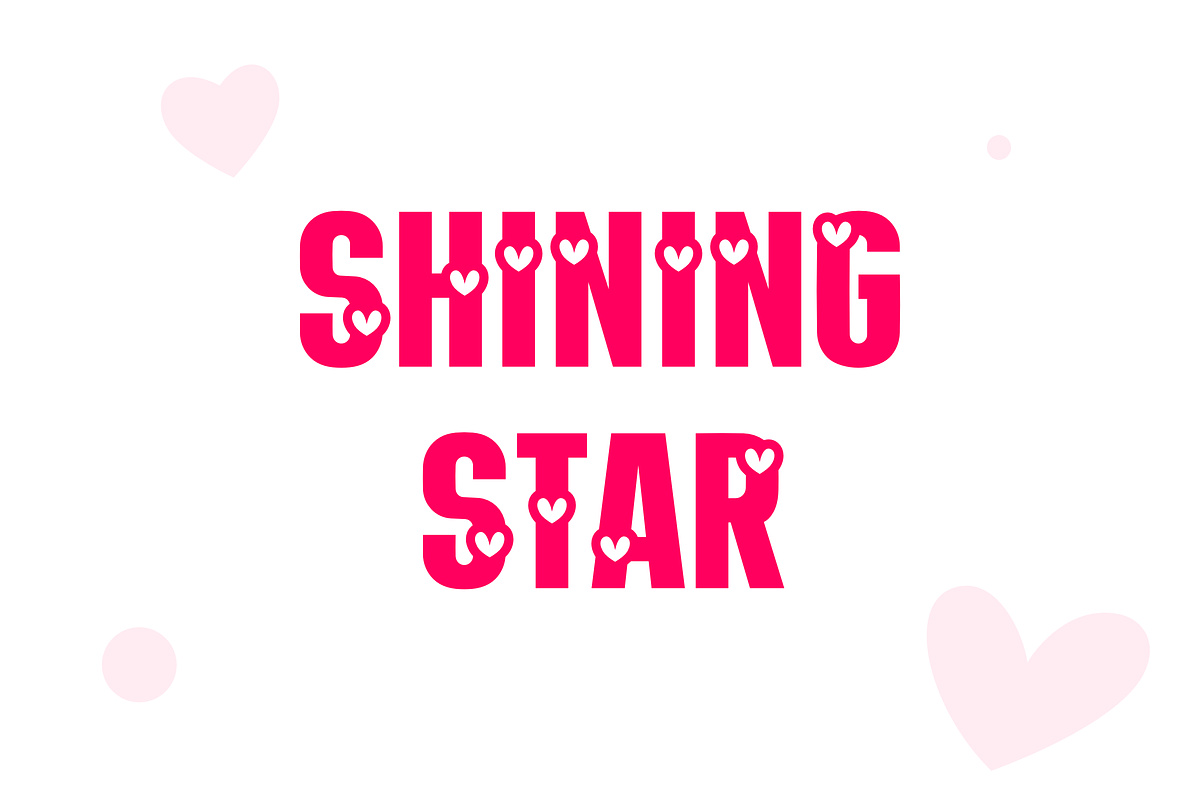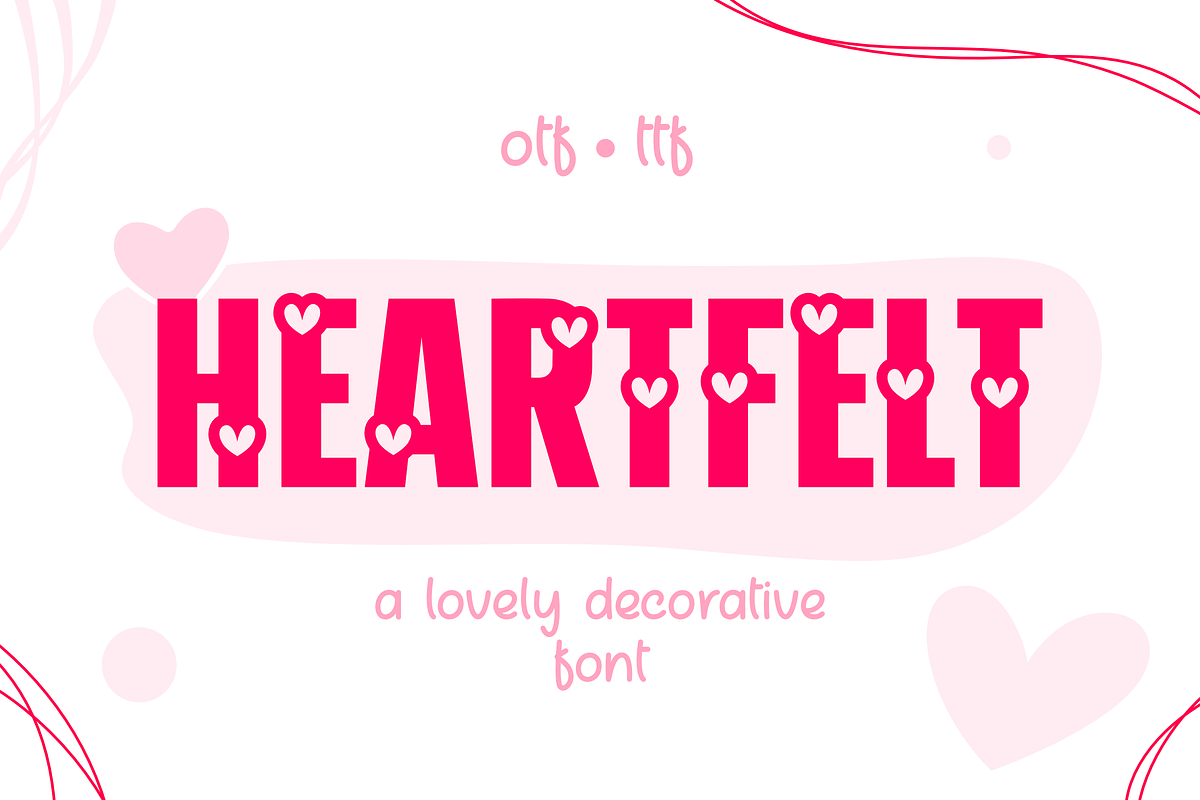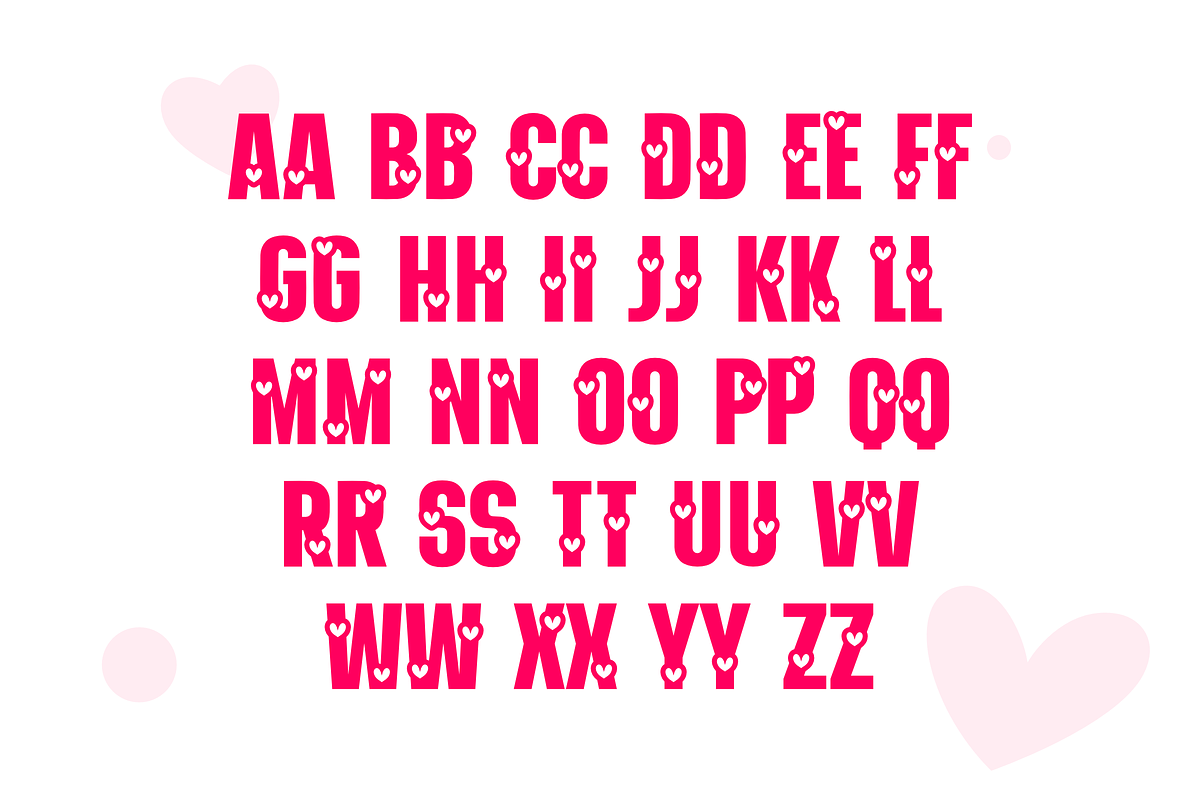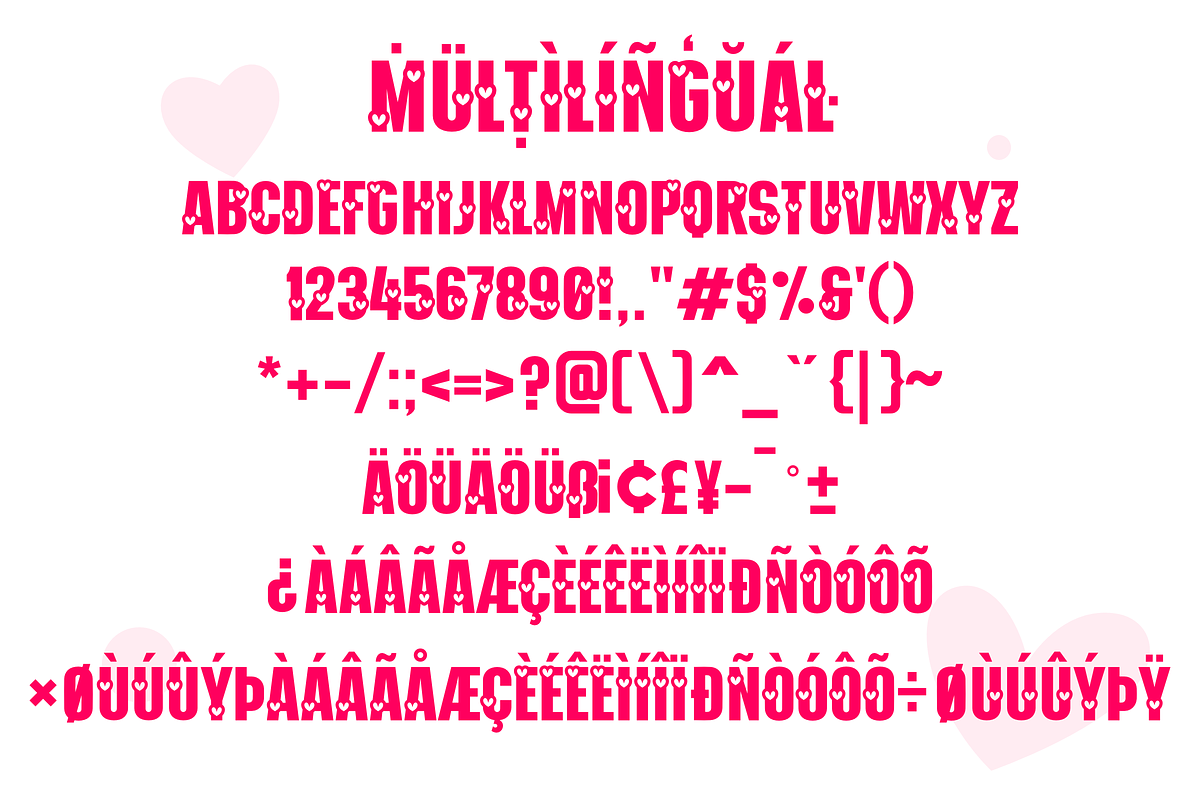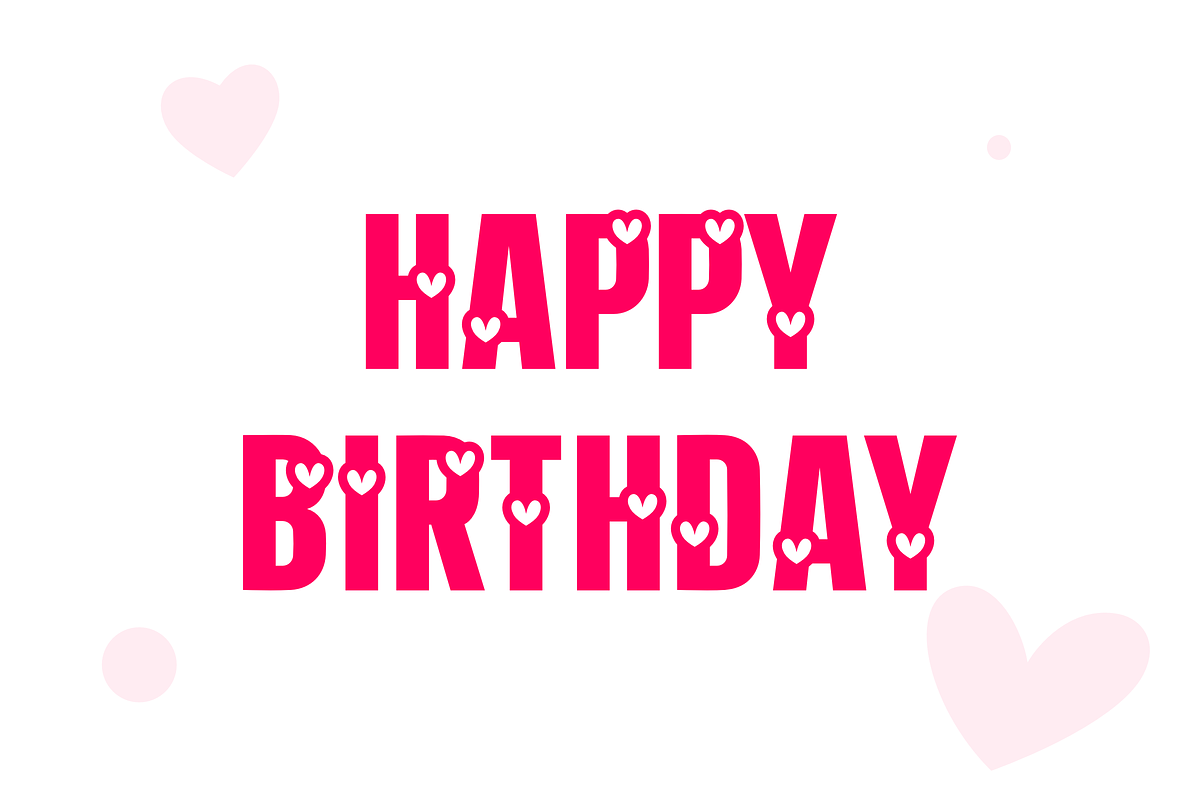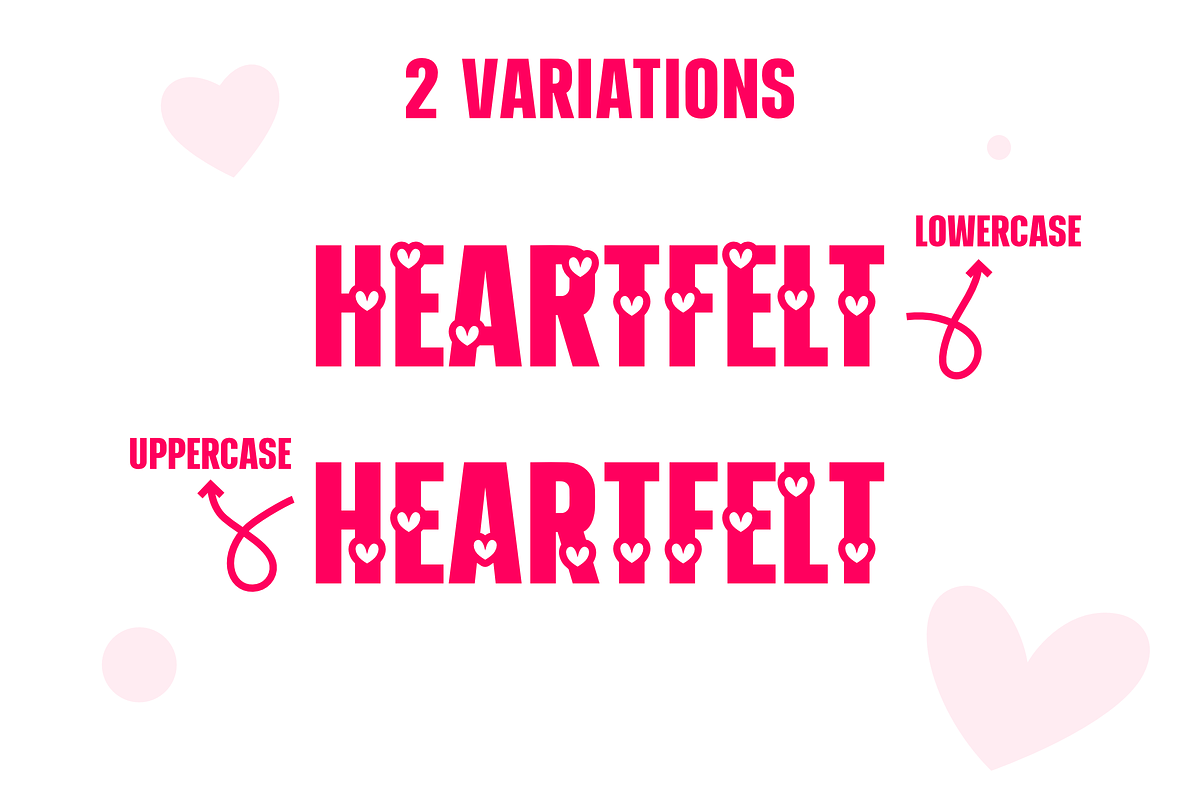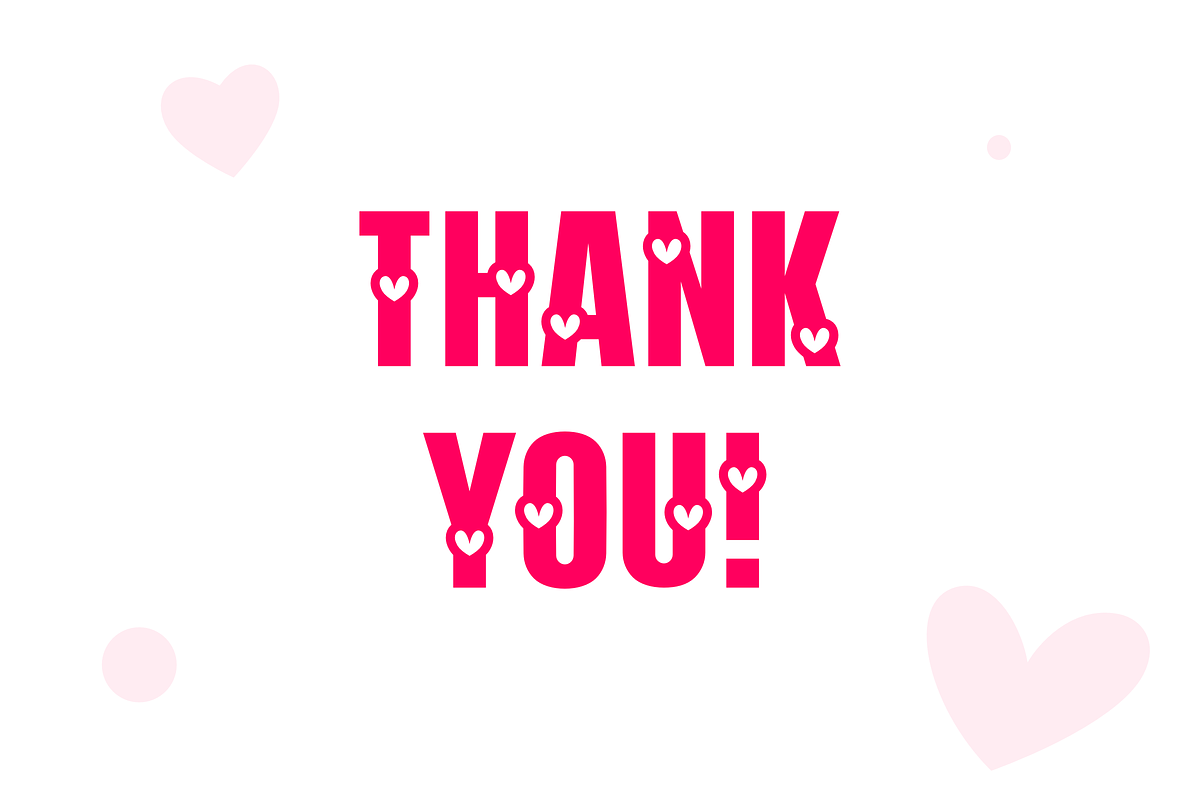
Heartfelt Font
Introducing “Heartfelt”, a modern and charming font adorned with tiny hearts. Crafted with love, this font is a unique blend of modern design and charming style of handwritten fonts. It is Perfect for adding a touch of love to your designs, from messages to invitations. Download today and spread the love with “Heartfelt” font.